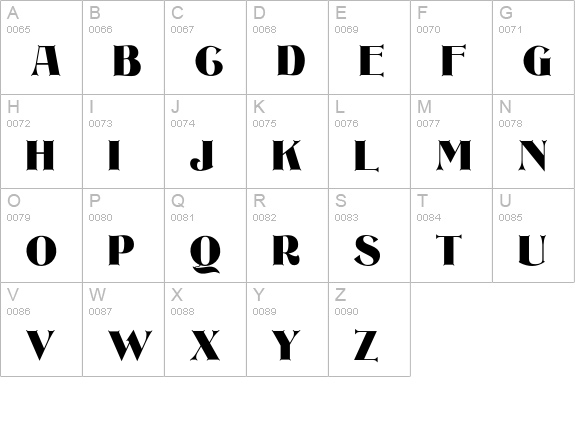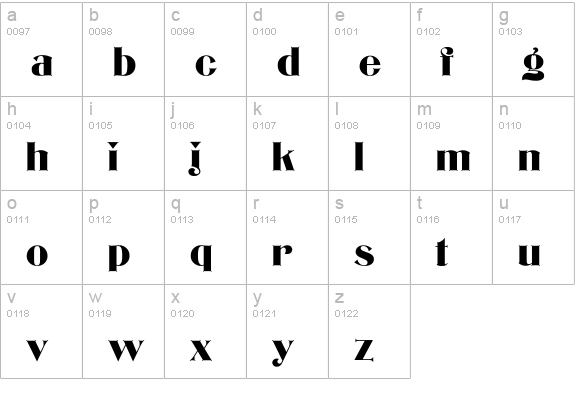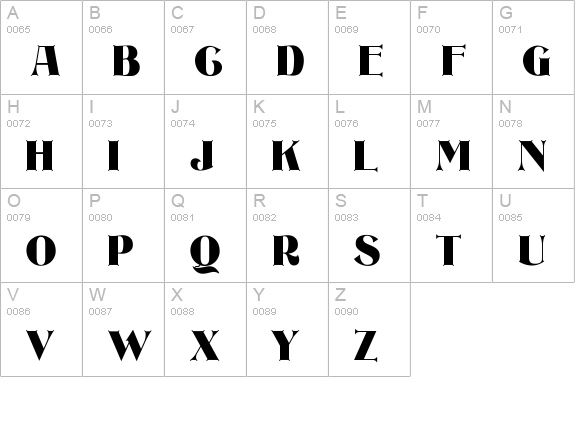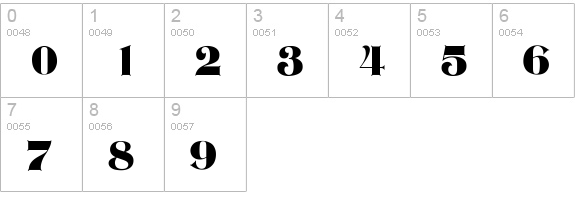
Richard Font Details
Richard font is a stunning typeface that exudes elegance and sophistication. With its sleek and modern design, it is perfect for adding a touch of class to any project. This versatile font is suitable for various purposes, including branding, advertising, packaging, and more. What sets Richard font apart is not only its impeccable craftsmanship but also the fact that it is freely available to download at FontsMarket.com. This means that anyone can access this beautiful font without any cost, making it an ideal choice for designers on a budget or those looking for high-quality fonts without breaking the bank. Richard font features clean lines, balanced proportions, and exquisite details, making it a timeless and versatile choice. Its wide range of weights and styles allows for endless creative possibilities, ensuring that every design can be personalized to perfection. Whether you are working on a logo, a website, a poster, or any other design project, Richard font will effortlessly elevate your work to new heights. Its legibility and readability make it suitable for both large and small sizes, ensuring that your message will always be clear and impactful. So, why wait? Embrace the elegance and versatility of Richard font today and download it for free at FontsMarket.com. With this exceptional font at your disposal, you can create stunning designs that will captivate and inspire.